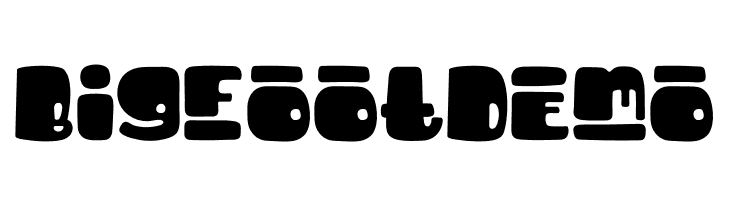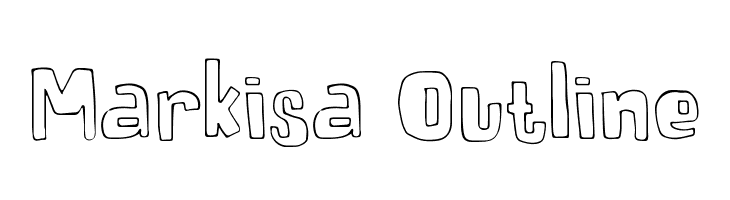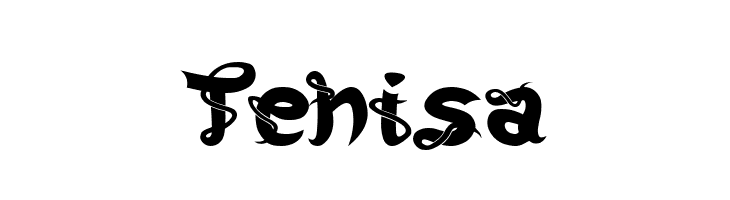
A playful, bold outline font with a hand-drawn, casual appearance.
A tall, narrow, and modern font with a sleek and sophisticated style.
A bold, decorative font with intricate face illustrations within each letter.
A playful, outlined font with a bold, bubbly style and three-dimensional effect.
A bold, modern font with unique curvature and strong presence.
A bold, cursive font with a lively and dynamic style.
A playful, hand-drawn font with rounded edges and a whimsical style.
A bold, outlined font with a modern, geometric design and tight spacing.
A bold, italicized font with a gradient line effect, offering a modern and dynamic style.